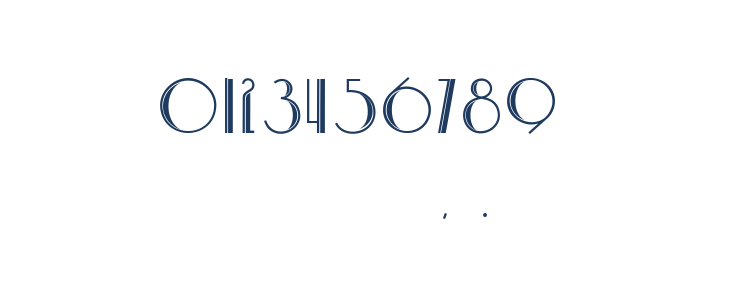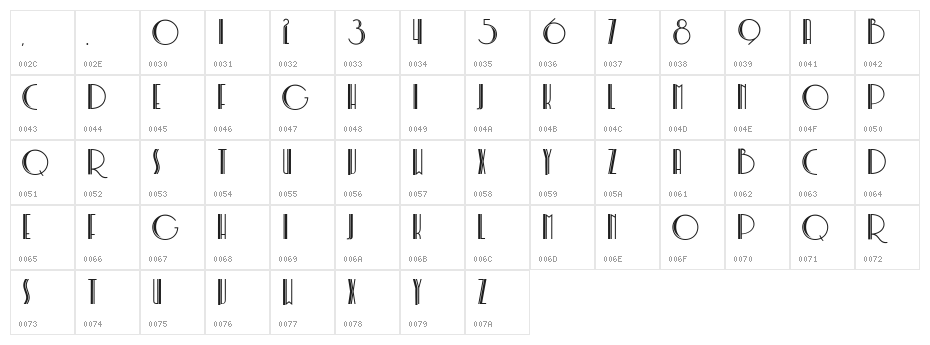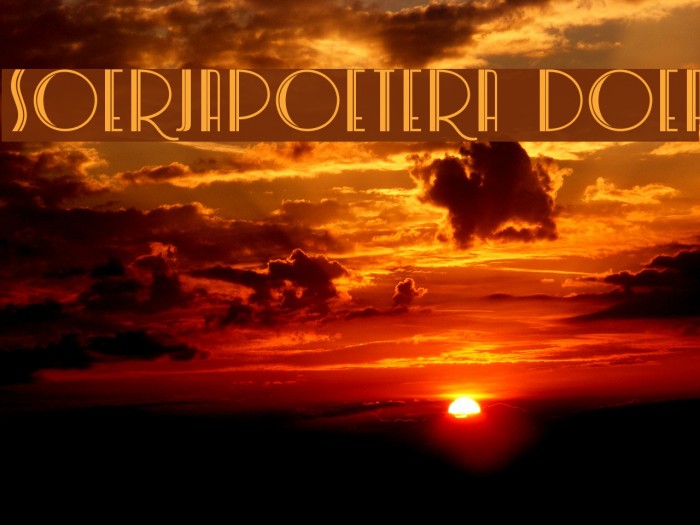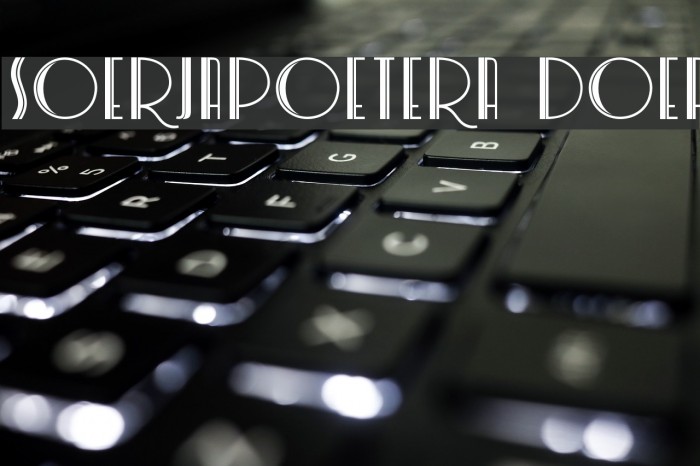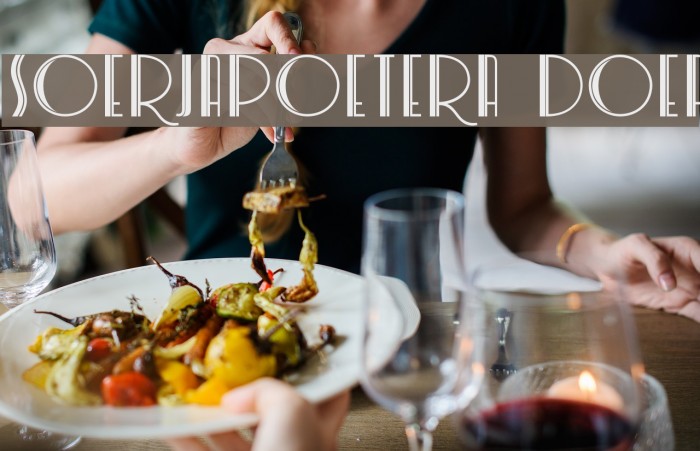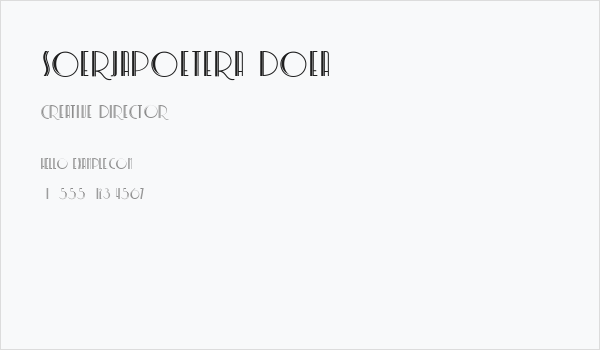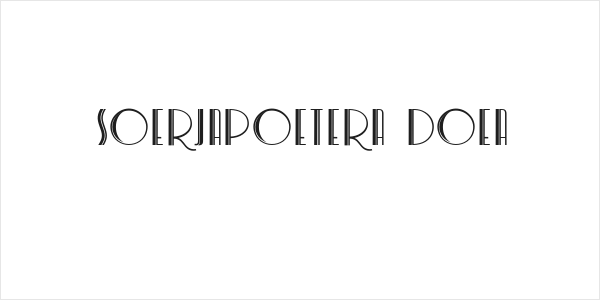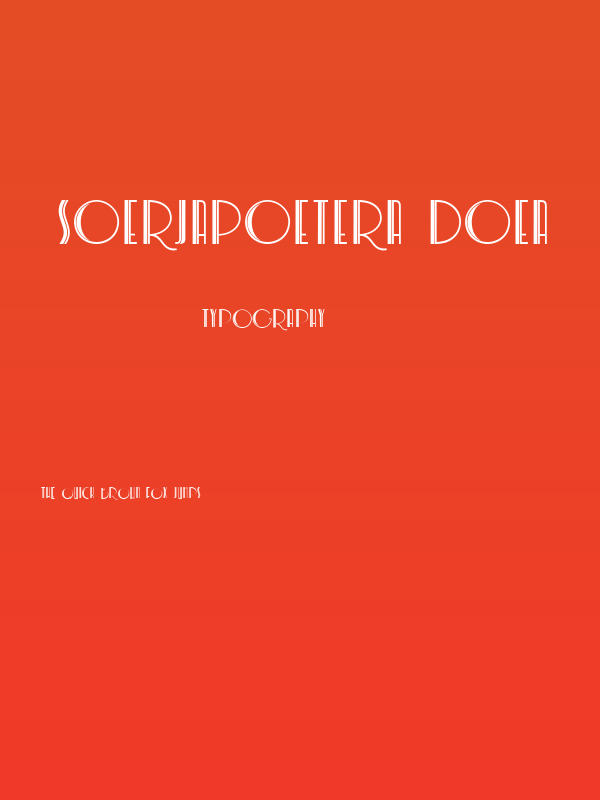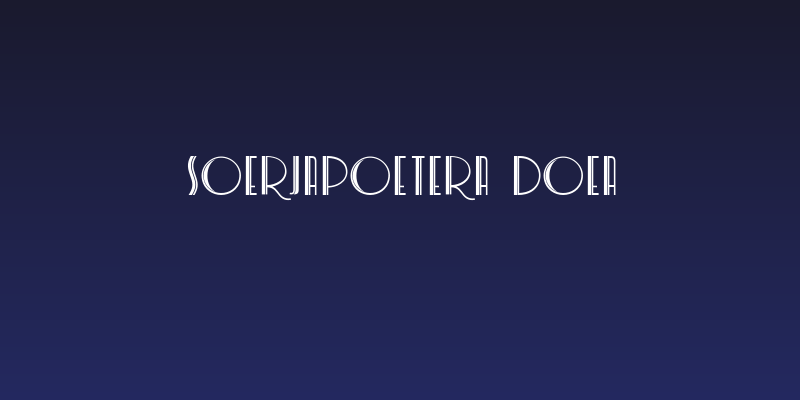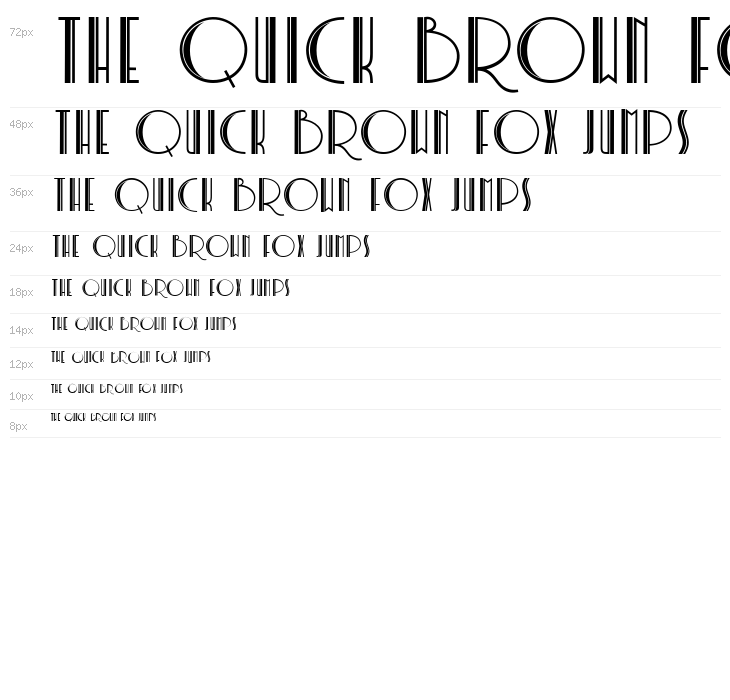
Soerjapoetera Doea Font
Soerjapoetera Doea Description
This font features a distinct Art Deco style, characterized by its geometric shapes and bold, vertical lines. The uppercase letters are tall and narrow, with a strong emphasis on verticality, while the lowercase letters maintain a similar aesthetic with slightly more curvature. The numerals are uniquely styled, incorporating circular and linear elements that align with the overall design. The special characters complement the set with their own geometric flair. This font's design is both elegant and striking, making it suitable for projects that require a touch of vintage sophistication.